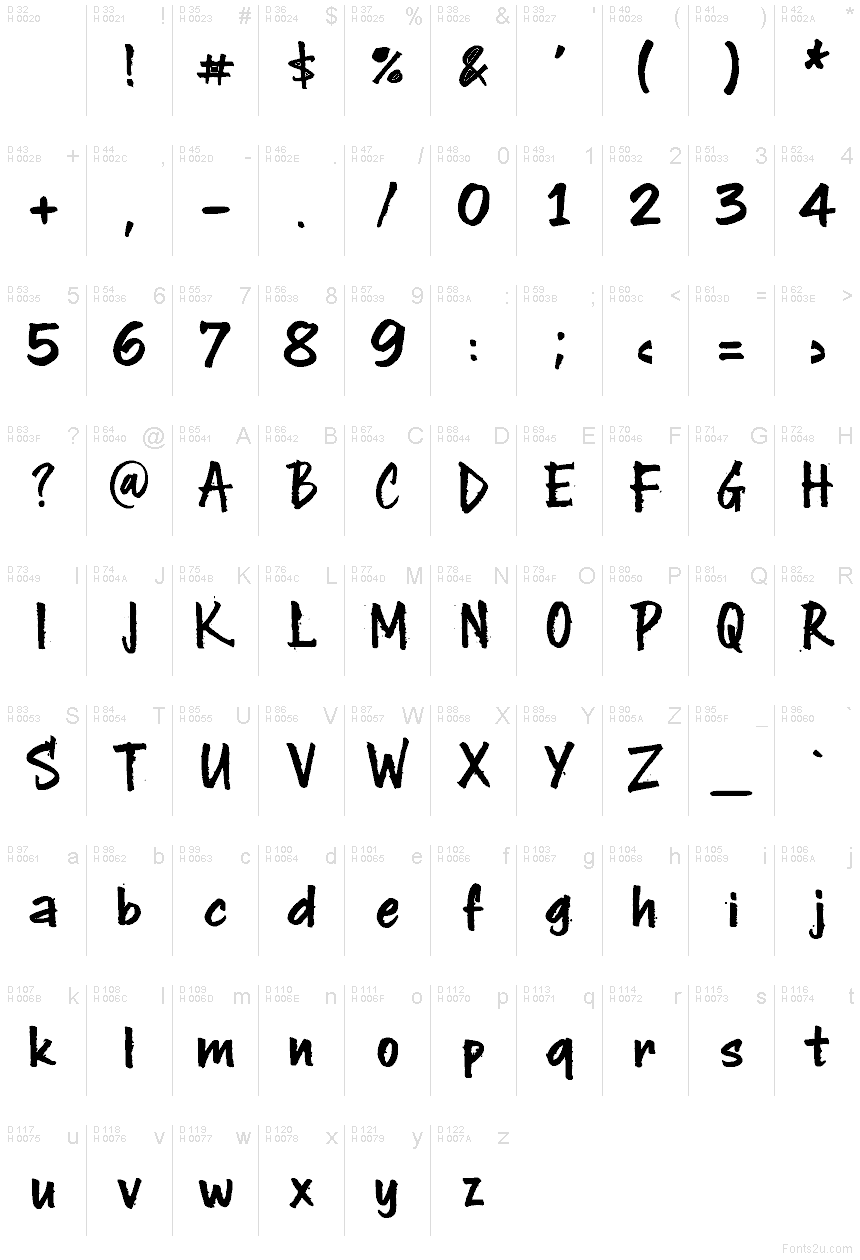
Zombie Brush
Zombie Brush font by BlackFridayFont FMF is a free brush typeface with gritty, inky strokes and splattered edges that feel freshly swiped across paper. Letters tumble with a lively bounce and thick, ragged texture, giving headlines a raw, hand-painted jolt without losing legibility. It brings that midnight-movie energy—loud, messy, and irresistibly tactile.
Using Zombie Brush, you can amp up Halloween posters, horror movie titles, haunted house signage, game splash screens, edgy merch, sticker packs, and YouTube thumbnails. The chunky rhythm reads fast at a glance, while the distressed finish sells mood in seconds. This free font shines when set big; pair it with a clean, understated sans for supporting copy to let the brushwork do the shouting.